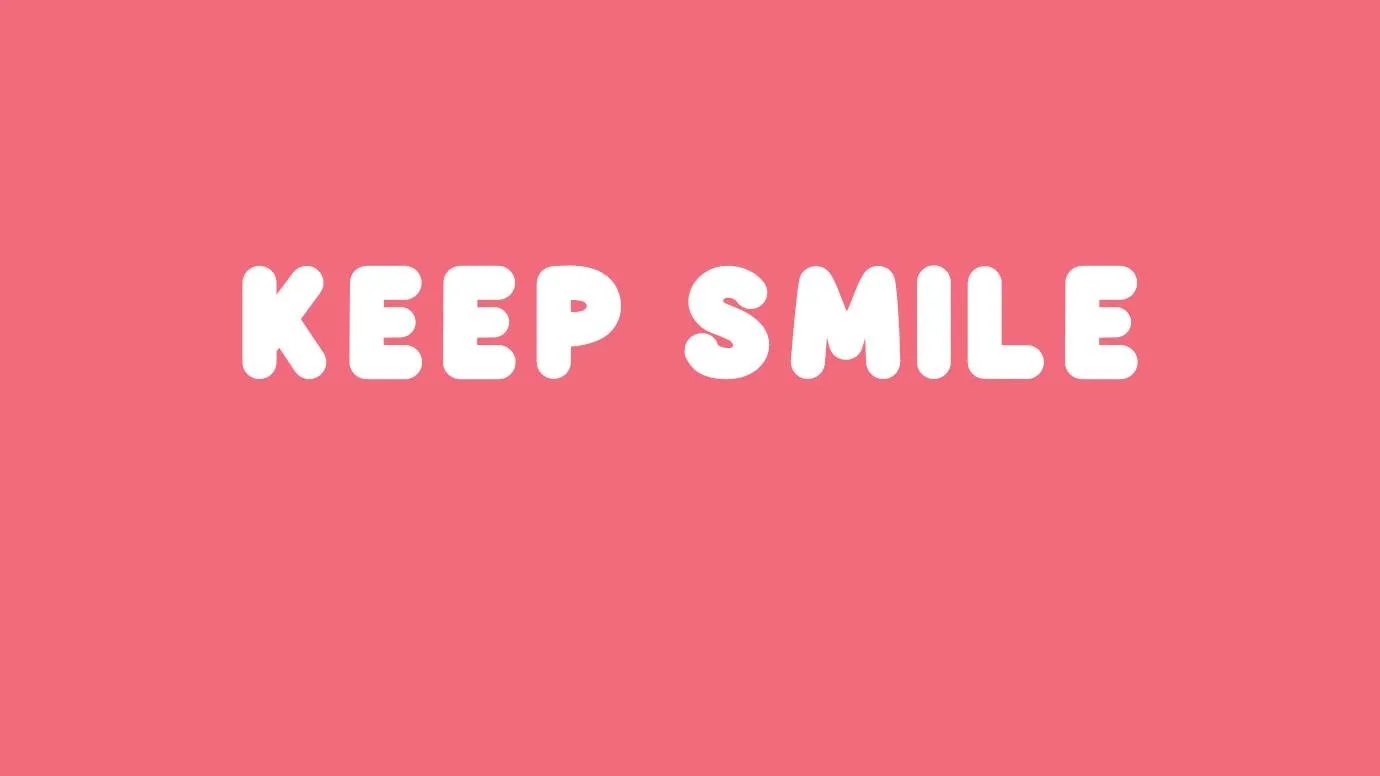
Keep Smile Font Family is a very cute fancy type cartoon font. The name of this amazing font gives very positive vibes and makes your mood good. It was designed by Abdul Malik Wisnu and manufactured by Almarkha Type.
You can also use this font for pairing with other typefaces such as nooble wooble font to give a more attractive look to your projects.
Keep Smile Font